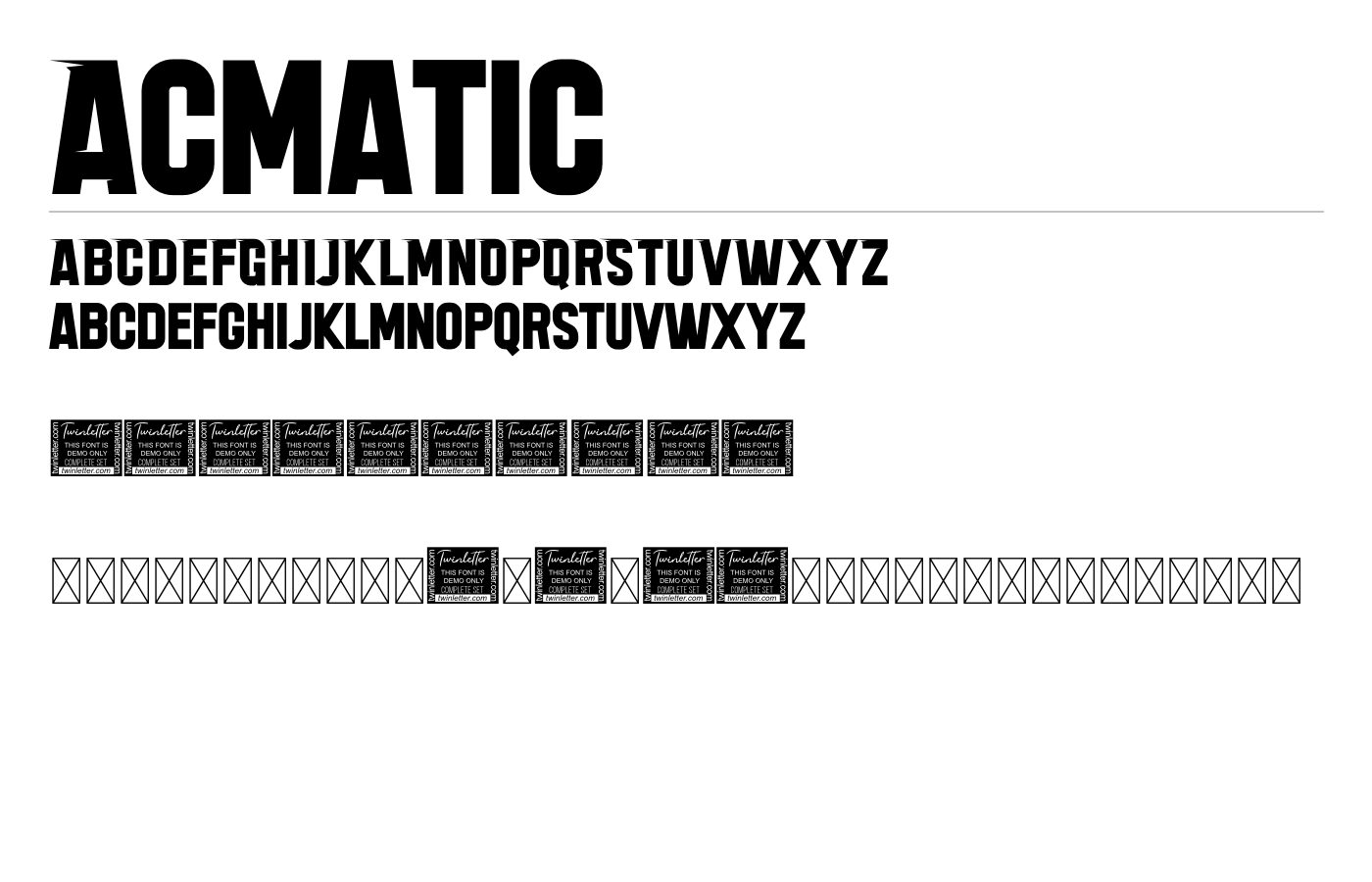
Acmatic is a bold, condensed sans serif font with a strong, geometric structure that commands attention. Its tall, narrow letterforms and sharp edges give it an assertive, modern feel, making it ideal for impactful headlines, logos, and branding that seek a confident and dynamic presence. This font works especially well in contexts where space is limited but a powerful visual statement is needed.
Acmatic Font
About Acmatic Font